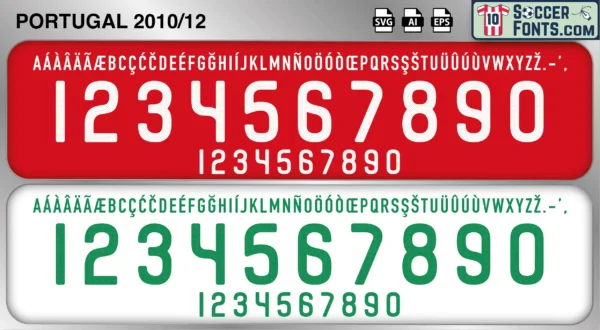
Portugal 2010-12 Font
The Portugal 2010-12 font is an editable soccer jersey lettering design in vector format inspired by the Portugal kit style used during the 2010-12 football seasons. This football font artwork is prepared for football shirt recreations, custom jersey projects, football kit mockups and sports graphic design workflows.
The 2010-12 period represented an important stage in the development of the Portugal national team as a new generation matured around Cristiano Ronaldo. Portugal arrived at the 2010 FIFA World Cup in South Africa after a challenging qualification campaign and entered a tournament featuring players such as Ronaldo, Pepe, Raúl Meireles, Ricardo Carvalho, Fábio Coentrão and Nani. The team progressed through the group stage, highlighted by a memorable 7-0 victory over North Korea, before being eliminated by eventual champions Spain in the Round of 16. Despite the disappointment, Portugal demonstrated the quality that would soon make it one of the strongest sides in Europe.
The Portugal 2010-12 font became associated with the build-up to UEFA EURO 2012, a competition that helped define the national team during the early years of the decade. Under Paulo Bento, Portugal successfully qualified for the tournament and developed a disciplined squad capable of competing against Europe’s elite nations. Cristiano Ronaldo entered the period as one of the world’s leading footballers, while younger players continued to establish themselves at international level. Portugal shirts from the 2010-12 era remain popular among football shirt collectors and supporters because of their connection to the South Africa World Cup, Ronaldo’s growing influence as captain and a transitional period that laid the foundation for future international success.